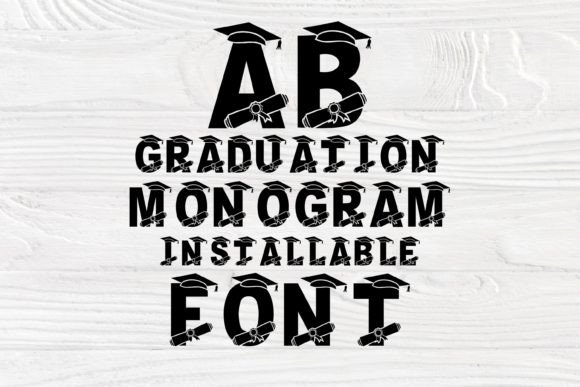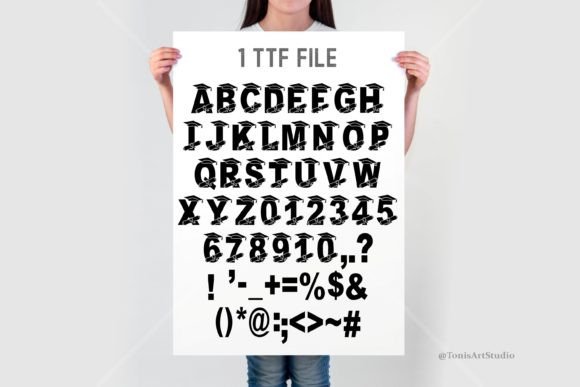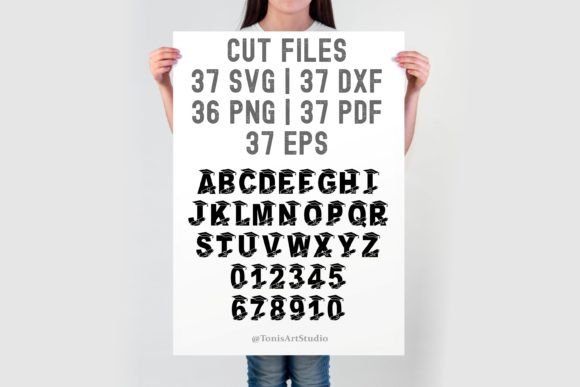
Introducing the Ultimate Graduation Monogram Font for Celebrating Milestones
Graduation is a momentous occasion that deserves to be commemorated with elegance and style. As a designer or crafter, you’re likely always on the lookout for unique and creative ways to celebrate the achievements of your loved ones. That’s where our exclusive Graduation Monogram Font comes in – a versatile and stylish font designed specifically for graduation monograms, family memorabilia, and celebratory crafts.
What is a Graduation Monogram Font?
A graduation monogram font is a specialized typeface designed to help you create stunning monograms and personalized designs for graduation-themed projects. Our Graduate Font is carefully crafted to provide a comprehensive set of letters, numbers, and graphics that can be used to create one-of-a-kind designs. Whether you’re making a customized banner, a personalized picture frame, or a graduation announcement, this font has got you covered.
Key Features of Our Graduation Monogram Font
- Full Monogram Alphabet: The font features a complete set of school letters and numbers, allowing you to create custom monograms with ease.
- Graduation Cap SVG: In addition to the font files, you’ll also receive a stylish graduation cap SVG (Scalable Vector Graphic) that can be used to add a touch of sophistication to your designs.
Endless Design Possibilities with Our Graduation Monogram Font
With our Graduate Font, the design possibilities are endless. Here are a few ideas to get you started:
- Custom Graduation Banners: Create a personalized banner with the graduate’s name and school letters to hang at the ceremony or in their bedroom.
- Monogrammed Picture Frames: Add a touch of elegance to a picture frame with a custom monogram featuring the graduate’s school letters.
- Graduation Announcements: Design beautiful announcements that feature the graduate’s name and school letters, perfect for sharing the news with friends and family.
- DIY Crafts: Use our font to create custom iron-on designs, vinyl decals, or paper crafts that celebrate the graduate’s achievement.
- Unique and Exclusive: Our font is carefully crafted to provide a distinctive and stylish look that’s sure to impress.